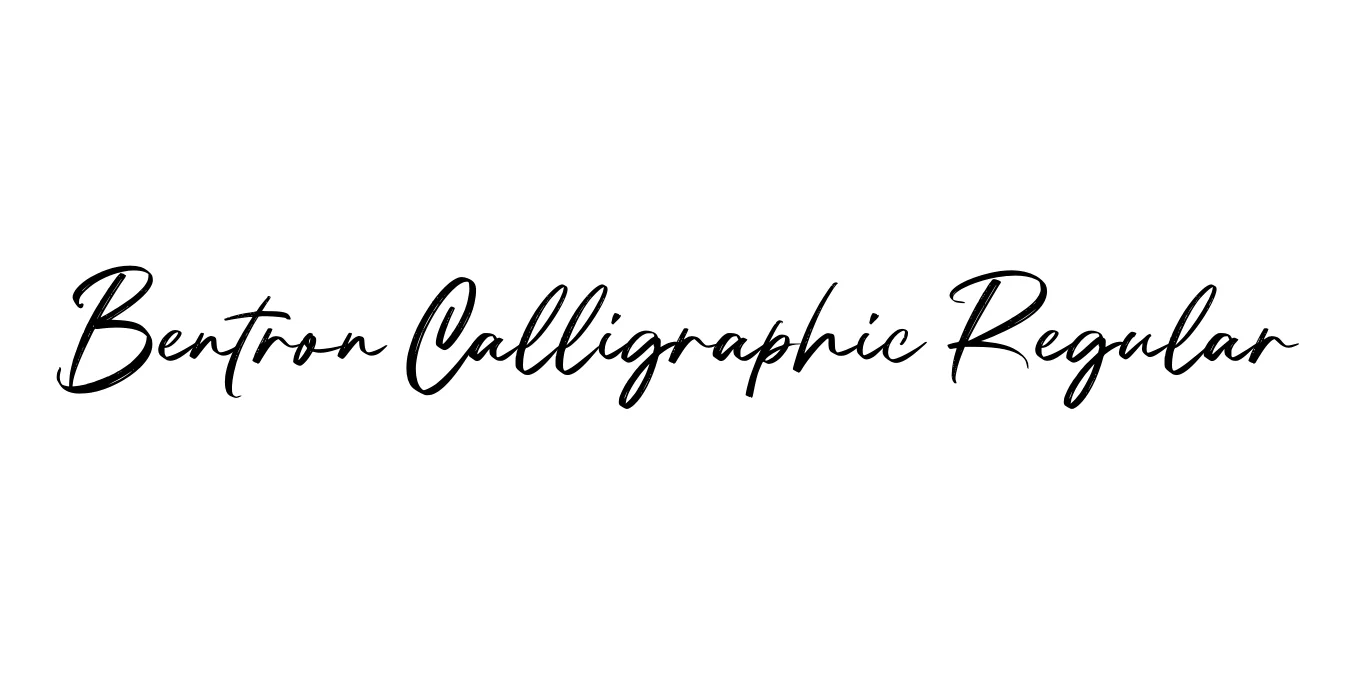
Bentron Calligraphic Regular
| Font Name | Bentron Calligraphic PERSONAL |
| Category | Calligraphy / Script |
| Similar Fonts | Zapf Chancery, Lucida Calligraphy, Great Vibes |
Bentron Calligraphic Regular is a masterpiece of modern typography, blending traditional calligraphic strokes with contemporary design sensibilities. Characterized by its fluid transitions and graceful flourishes, this font exudes an air of sophistication and luxury, making it a premier choice for high-end creative projects that require a touch of hand-crafted elegance.
Designed with versatility in mind, the font includes a wide range of OpenType features, such as elegant ligatures and stylistic alternates. This allows designers to create unique, hand-lettered looks that are perfect for everything from high-fashion editorial layouts to bespoke wedding stationery and corporate identities that aim for a classic yet modern appeal.
Bentron Calligraphic Regular Best Uses
Ideal for invitations, envelopes, and place cards needing a touch of elegance.
Perfect for high-end fashion, jewelry, and boutique brand identities.
Adds a sophisticated flair to magazine headlines and artistic pull quotes.
Great for creating eye-catching quotes and stylized graphic overlays.